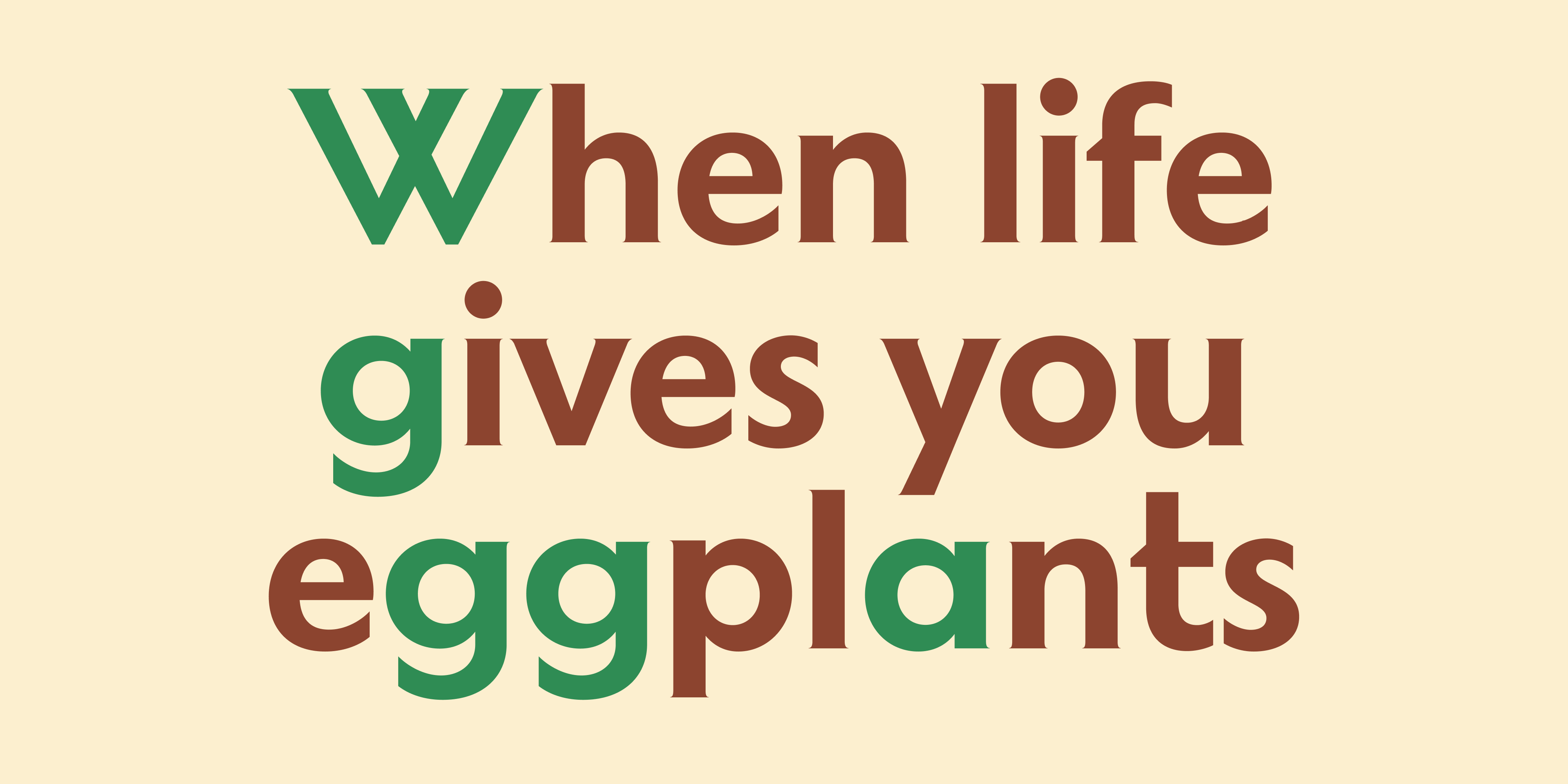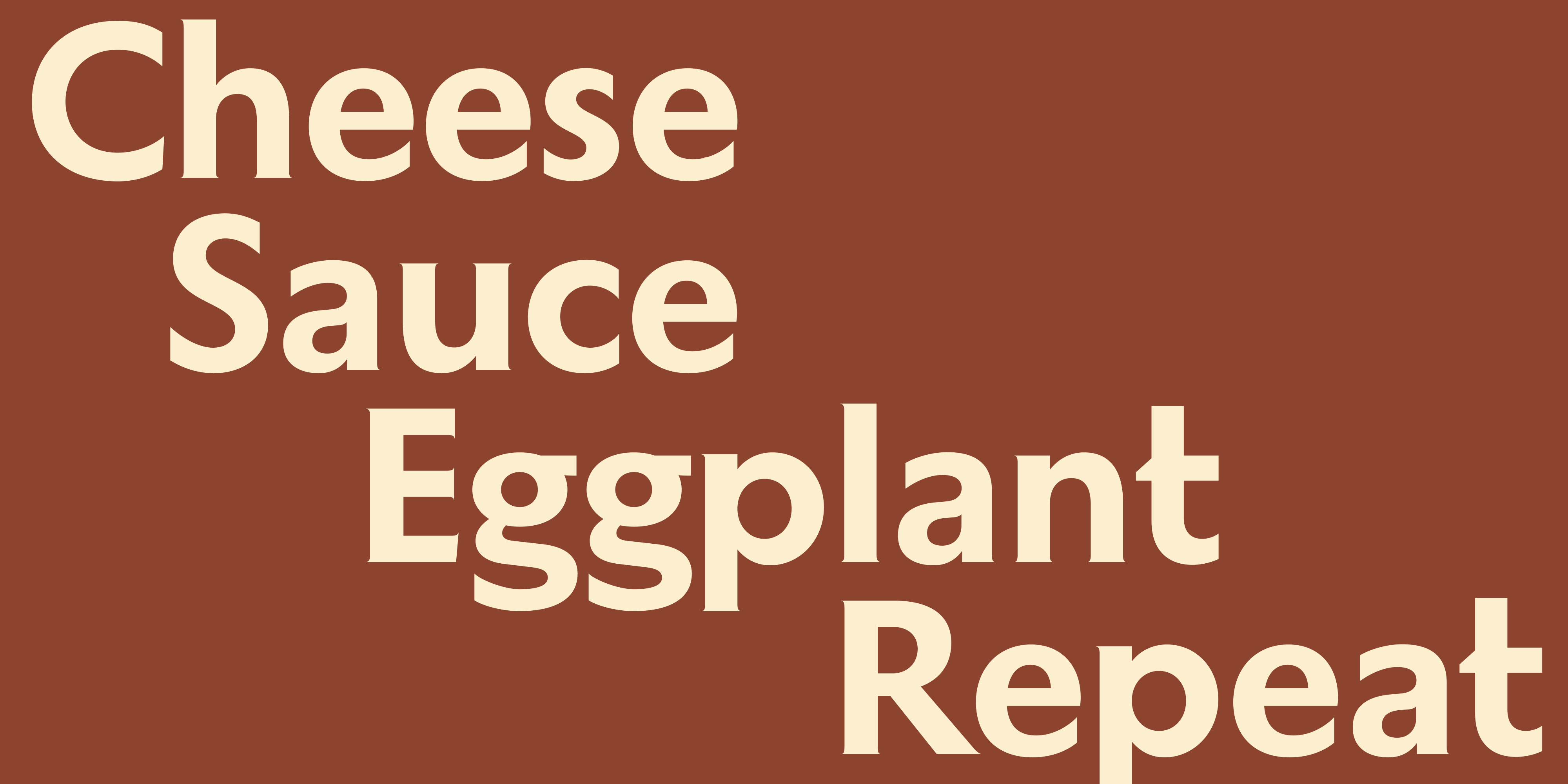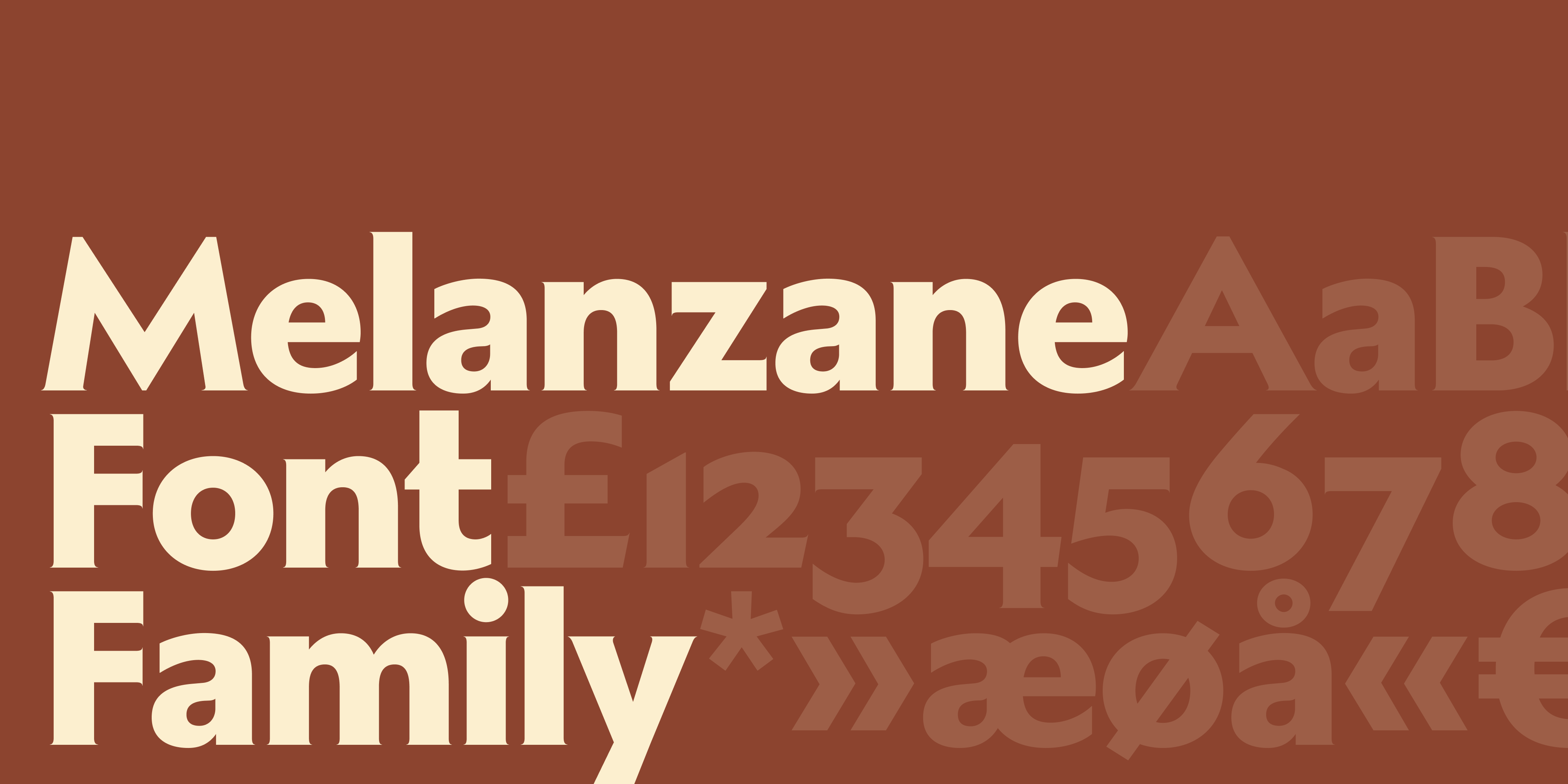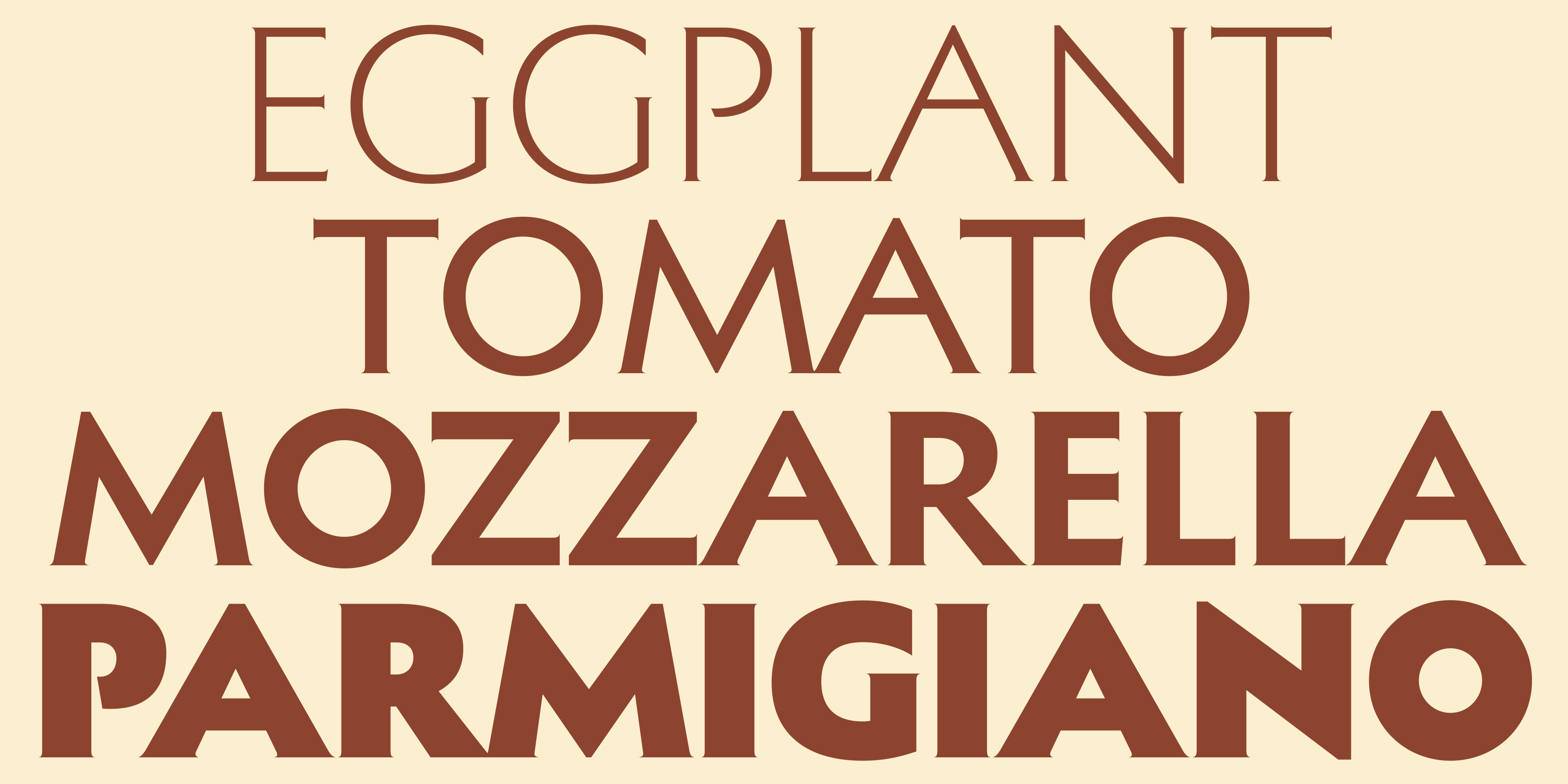
Almost not a serif-serif typeface – a presque-serif – loosely based on the proportions of the Classic Roman Majuscule found on the Trajan’s Column in Rome. The family consists of seven weights from Thin to Black. With its mix of classic proportions, low contrast and loads of quirky detailing Melanzane has a friendly yet refined character, with the lighter weights coming off more delicate and formal the while black and bold weights come off contagiously playfull.